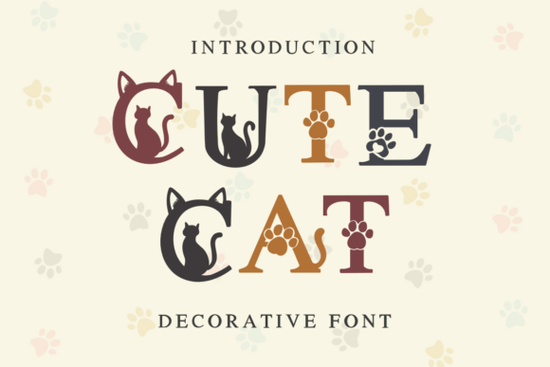
If you’ve ever wanted to add a touch of feline charm to your designs without going over the top, the Cute Cat Font might be exactly what you’re looking for. This decorative typeface blends classic serif styling with subtle cat-inspired details like tiny ears peeking from letterforms or delicate paw prints replacing dots that feel playful but never childish. Whether you're designing greeting cards, branding a pet boutique, or personalizing nursery wall art, this font brings warmth and personality to every word.
What makes the Cute Cat font stand out is how thoughtfully it integrates whimsy into readable typography. Unlike novelty fonts that sacrifice legibility for theme, Cute Cat maintains elegant proportions while weaving in just enough cat motifs to delight viewers at first glance. It’s especially effective for short headlines, logos, or accent text where visual storytelling matters more than body copy.
Who actually uses a font like this?
You don’t need to be a “crazy cat person” (though it helps!) to find real value in this design tool. Here’s who benefits most:
- Pet businesses from groomers to boutique retailers use it for flyers, packaging labels, and social media banners that reflect their brand’s friendly vibe.
- Print-on-demand sellers create mugs, T-shirts, and tote bags with phrases like “Purr Therapy” or “Whisker Wednesday” that resonate with cat lovers.
- Digital scrapbookers and Cricut crafters layer the font into layouts or cut files for birthday cards, adoption announcements, or nursery decor.
- Nonprofits running animal rescue campaigns add emotional appeal to event posters or donation drives with soft, inviting typography.
How to use it without overwhelming your design
Because Cute Cat is a decorative font, it works best when used sparingly. Think of it as an accent rather than your go-to body text. A few practical tips:
- Use it for headlines only never paragraphs. Its detailed elements lose clarity at small sizes.
- Pair it with a clean, neutral sans-serif (like Montserrat or Lato) for balance.
- Avoid all-caps unless the design calls for bold emphasis; lowercase letters often showcase the cat silhouettes more clearly.
- Test readability on both screen and print some fine details may blur on low-resolution outputs.
Where does it fit in your workflow?
If you browse Creative Fabrica’s decorative fonts section, you’ll notice many themed typefaces lean either too cartoonish or overly ornate. Cute Cat strikes a rare middle ground: it’s distinctive enough to stand out, yet restrained enough to feel professional. That makes it ideal for small businesses that want personality without sacrificing polish.
For example, a vet clinic might use it for a “Kitten Wellness Week” flyer headline, then switch to a standard font for appointment details. A stationery designer could feature it on a “Happy Adoption Day” card, knowing the recipient will appreciate the subtle paw-dot over the “i.” These are real-world applications where charm meets function.
If your next project involves celebrating cats whether for business, gifting, or pure joy the Cute Cat font offers a tasteful, joyful way to let your message purr.